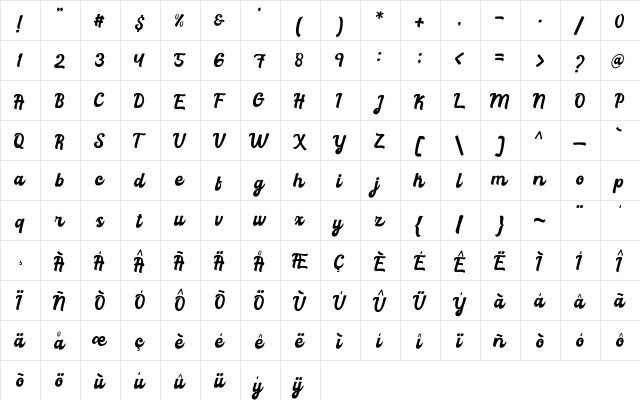
Rachael Script Regular
Design Context for Rachael Script Typeface
Rachael Script flows with the natural rhythm of handwritten lettering, making it ideal for designs that call for warmth and personal expression.
Font Pairing: Combine Rachael Script with a simple geometric sans for maximum contrast — the tension between flowing curves and clean structure is a classic typographic pairing.
Pro Tip: Pair Rachael Script with a clean sans-serif for supporting text. The contrast between fluid script and geometric structure creates an elegant typographic hierarchy.